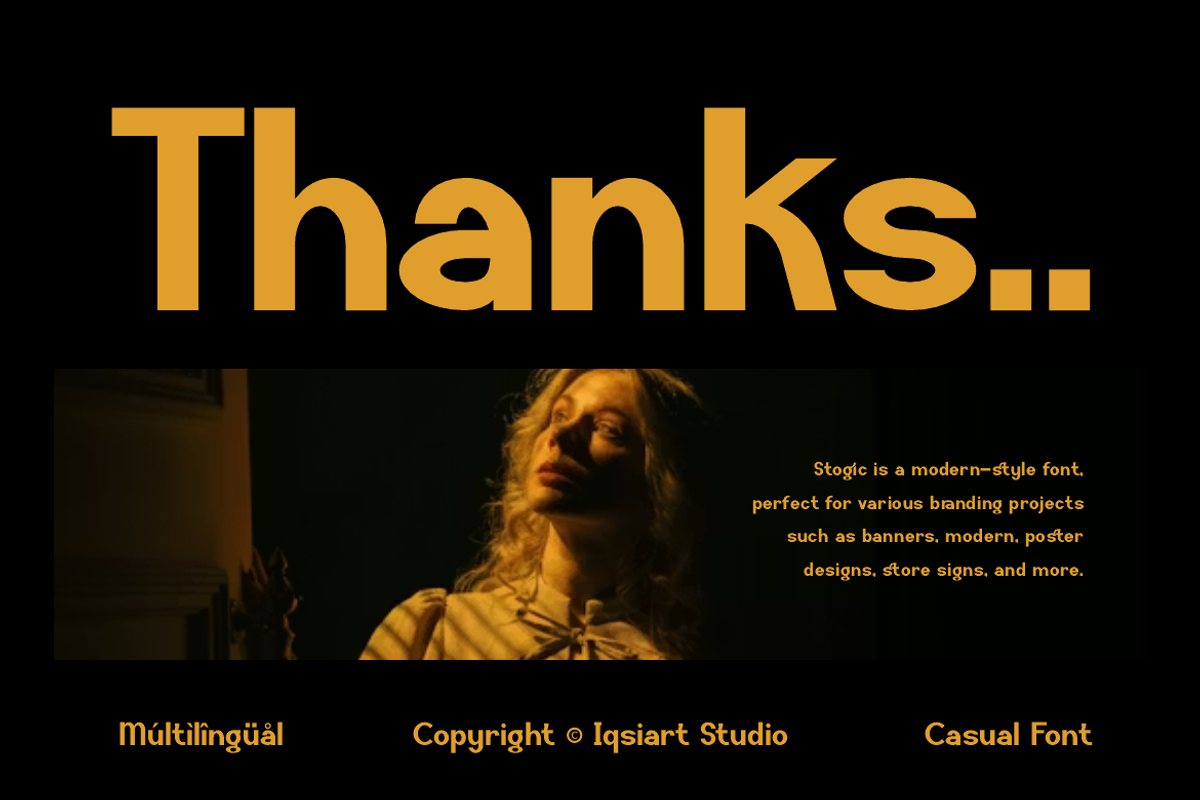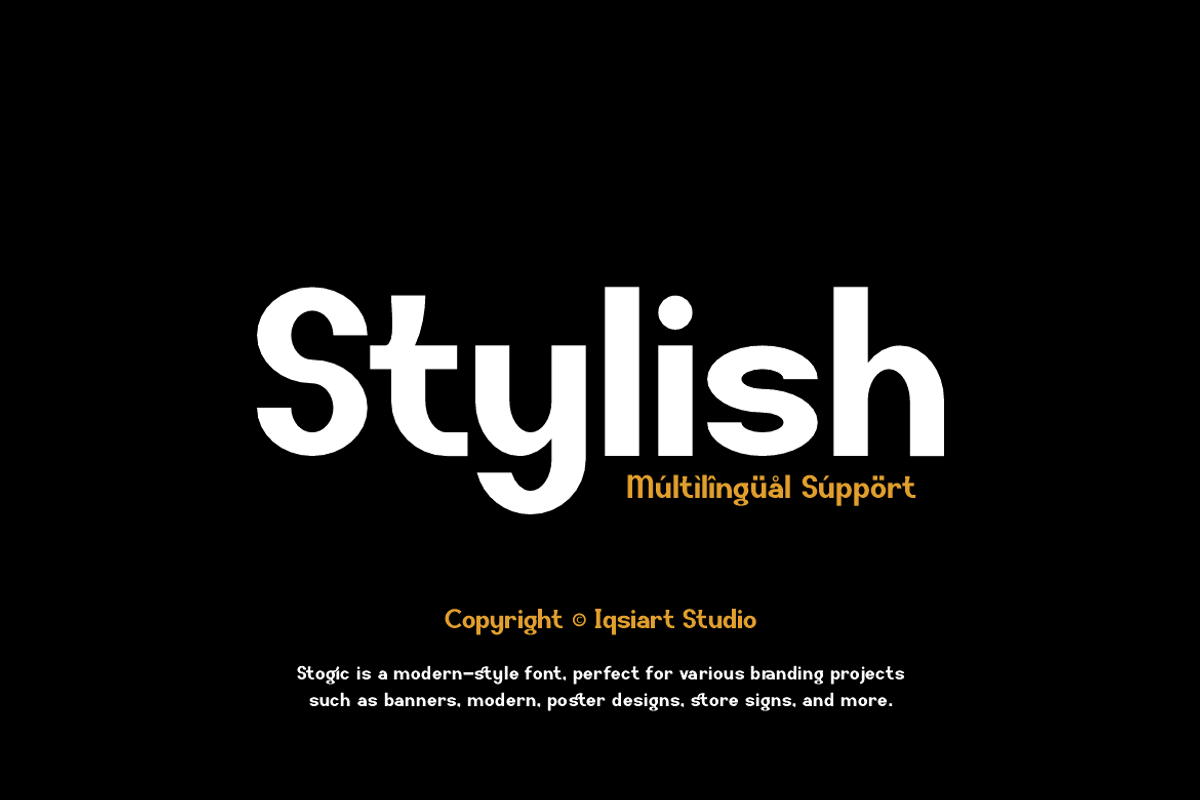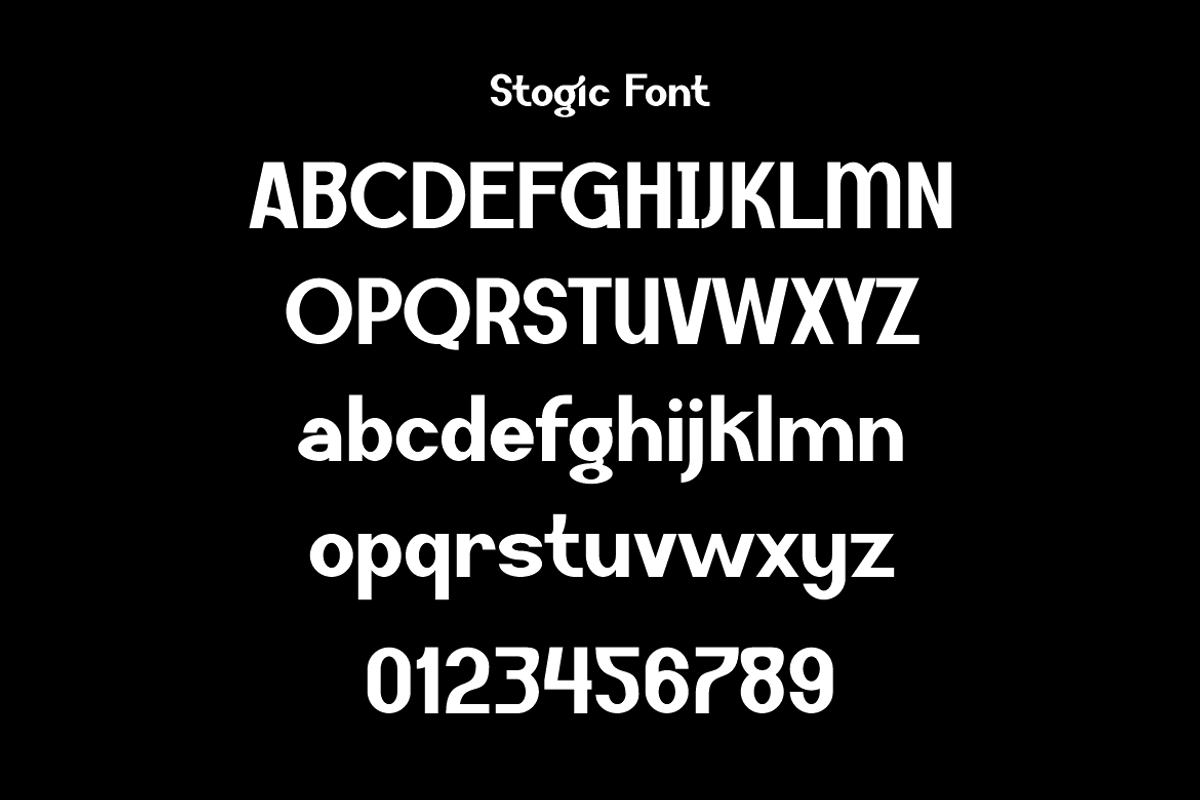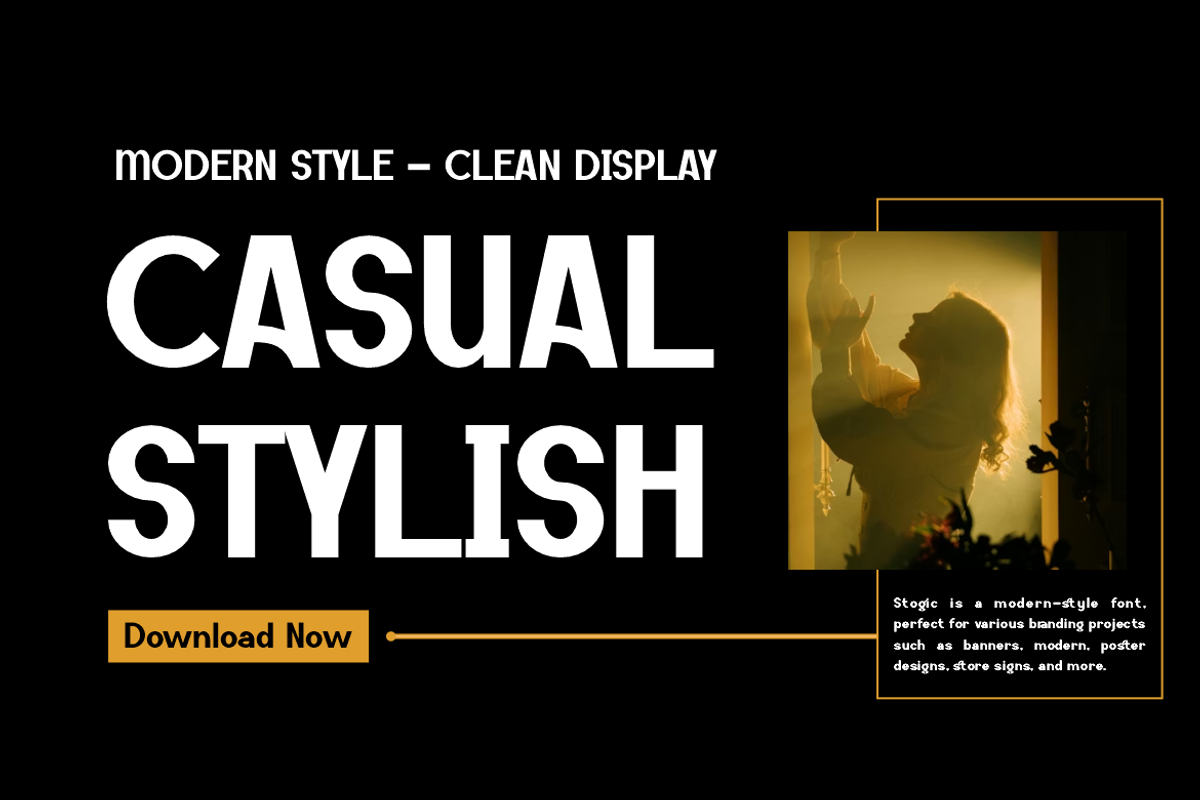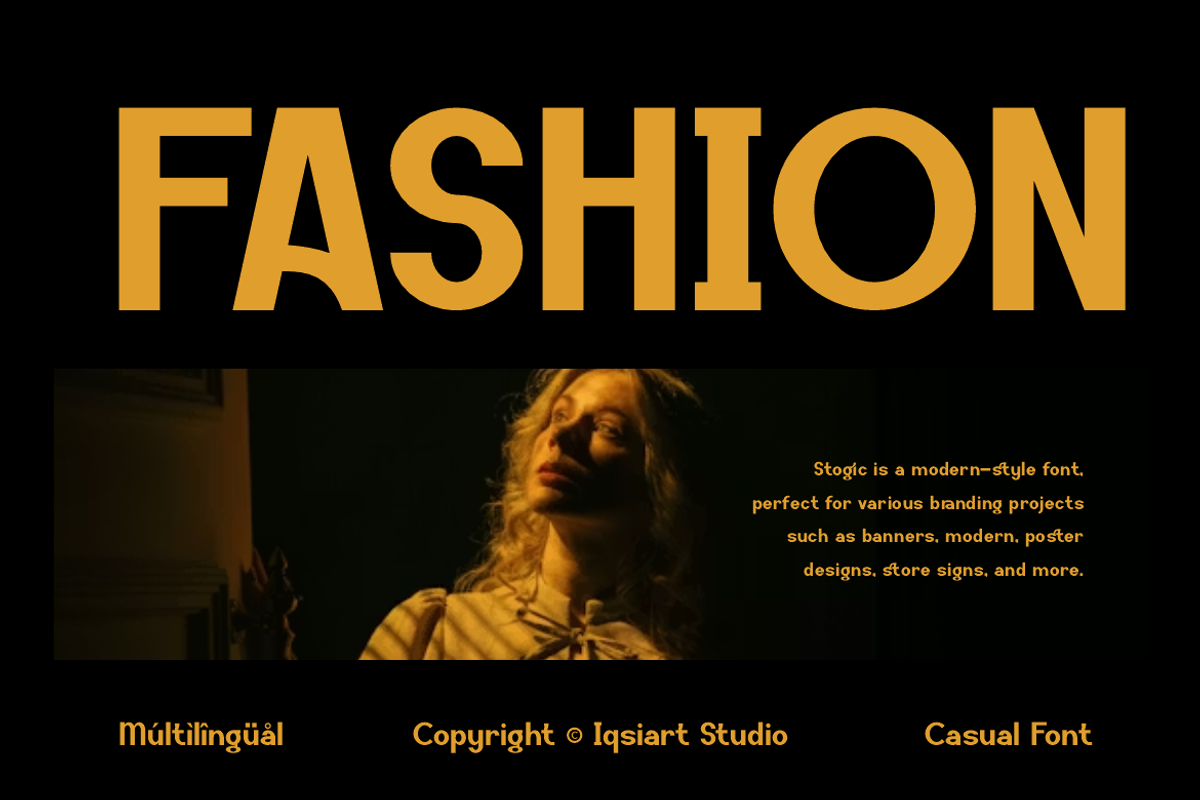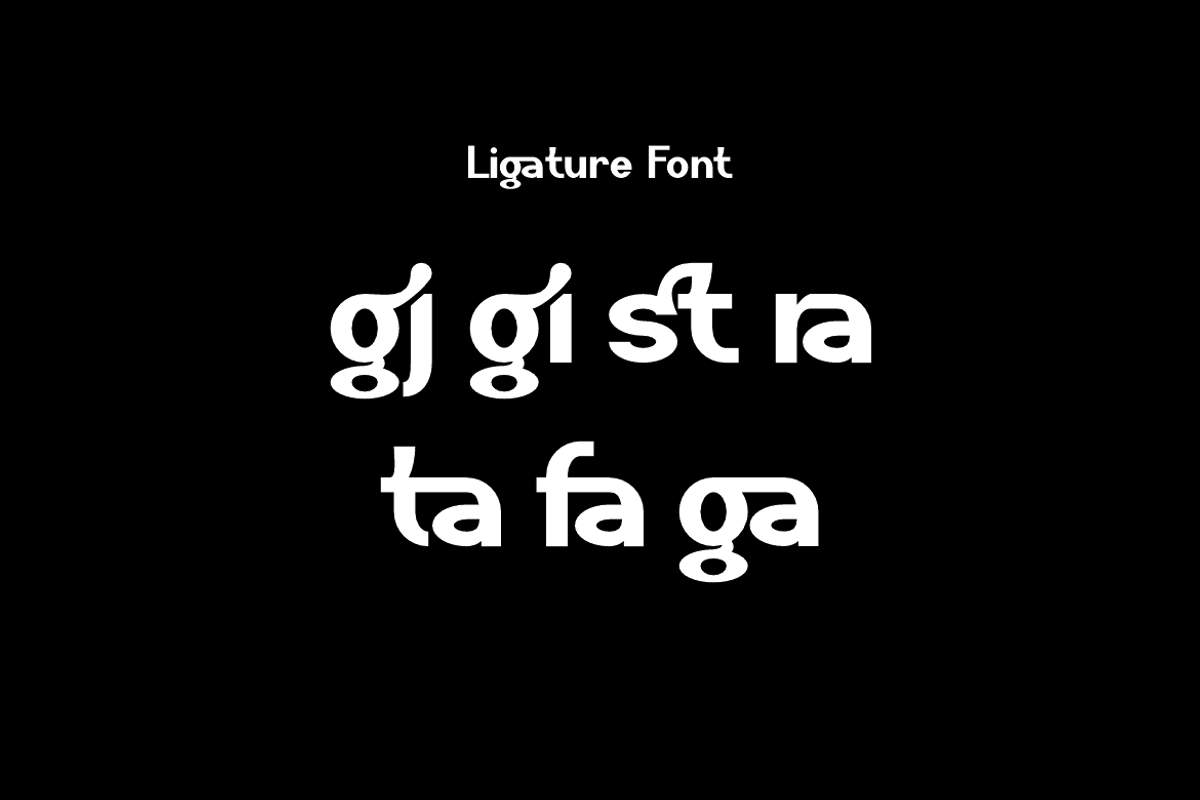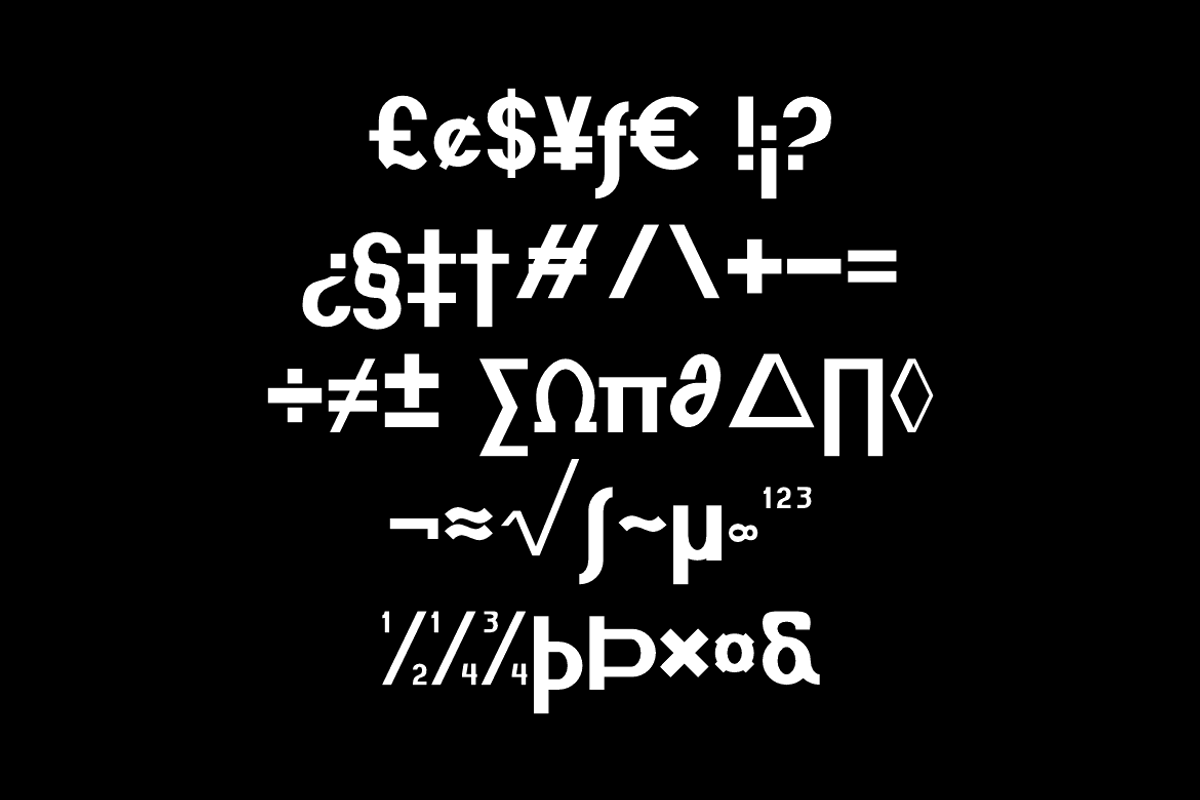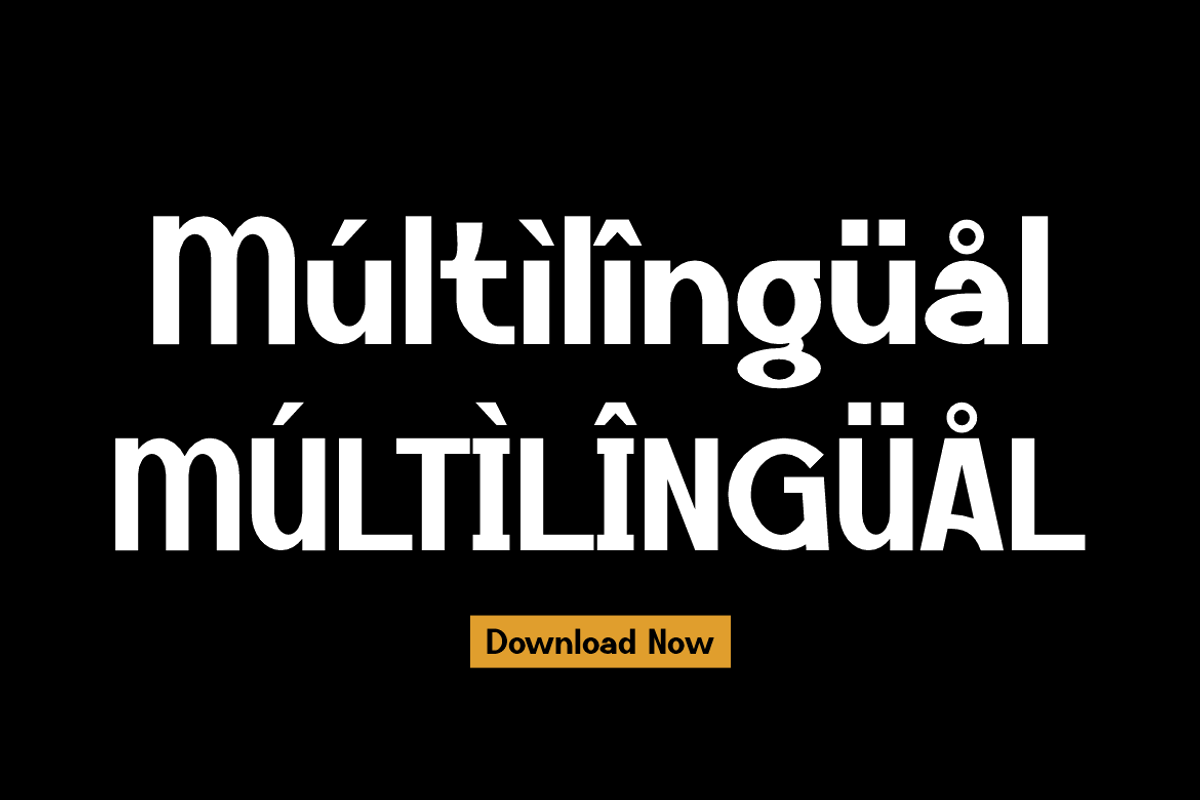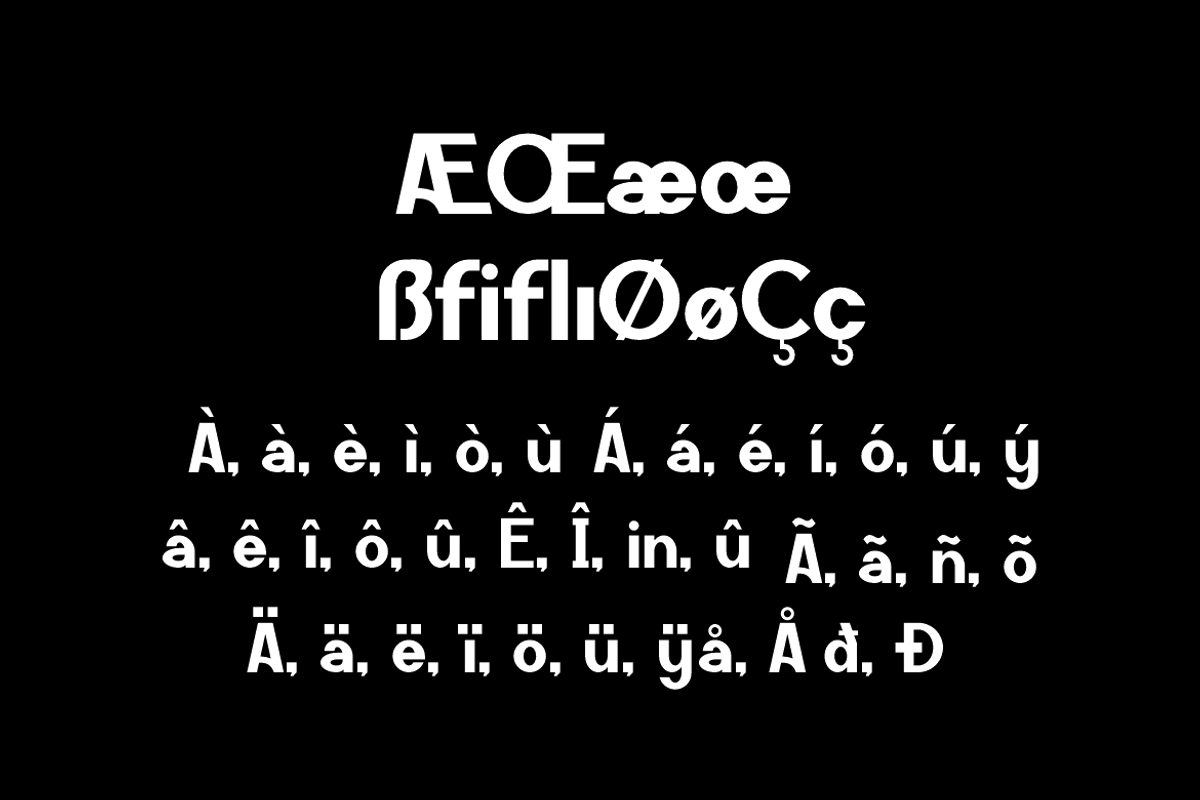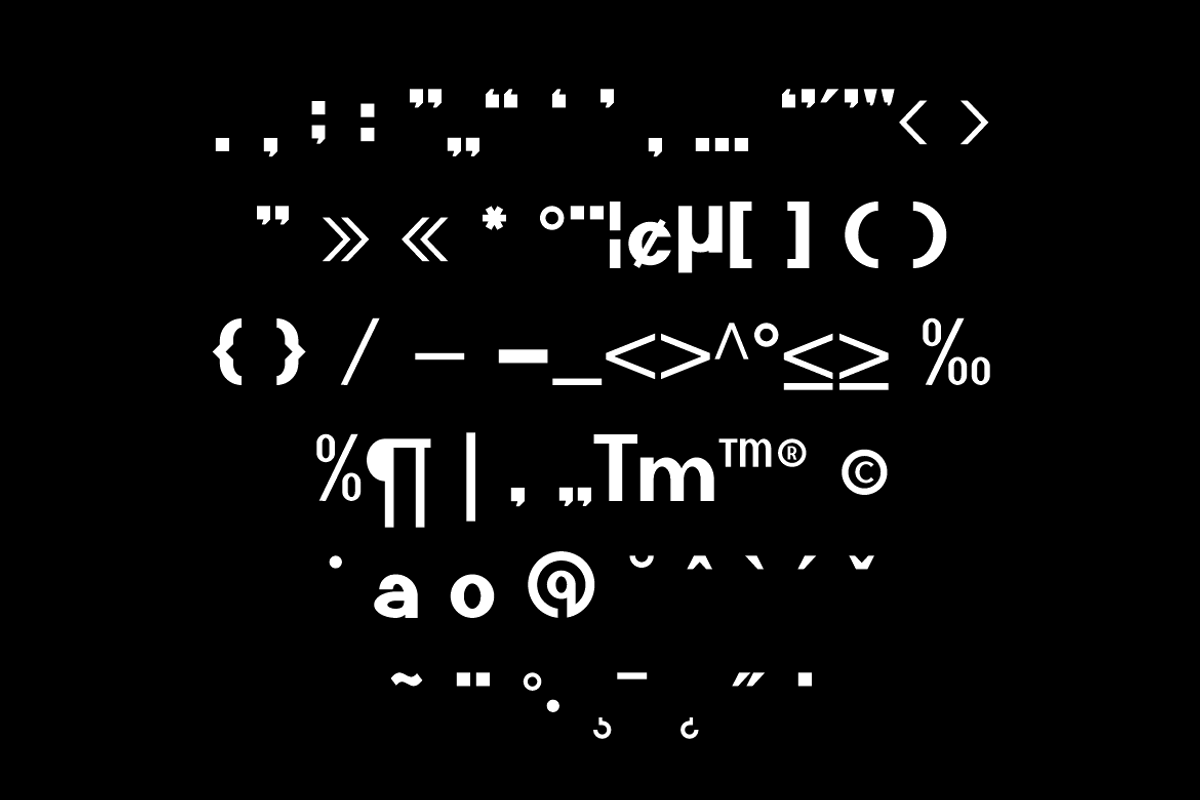
Stogic - Modern Stylish Font
Stogic Font is a modedrn and authentic display typeface that suits a variety of design needs. We offer a wide range of themes and font styles — visit our profile to explore more and find the perfect style for your project.
Multilingual Suppport